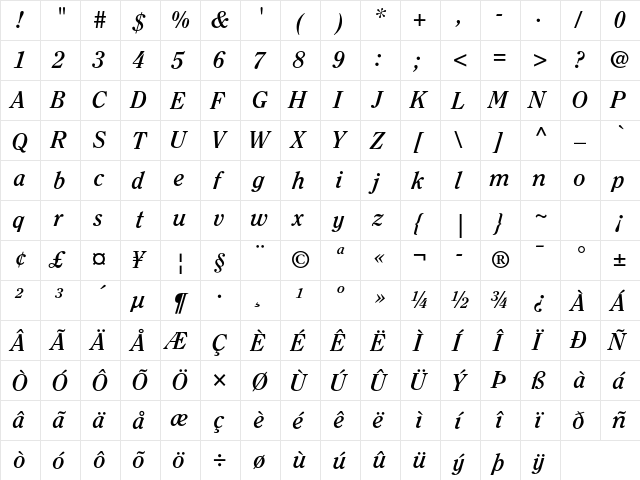
ITC Clearface Std Bold Italic Font Preview
| Designer | Vic Caruso |
Design Context for ITC Clearface Std Typeface
ITC Clearface Std takes a measured approach to typography — its balanced proportions and neutral character make it a reliable workhorse for both digital and print work. Its italic angle brings a sense of urgency and motion to the letterforms. The heavy weight commands attention and anchors typographic hierarchies.
Pro Tip: Use ITC Clearface Std for emphasis, pull quotes, and subheadings where its slanted energy can add rhythm to the layout.